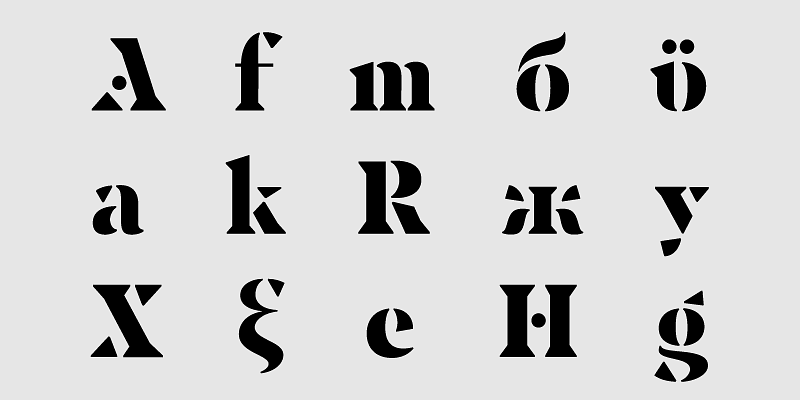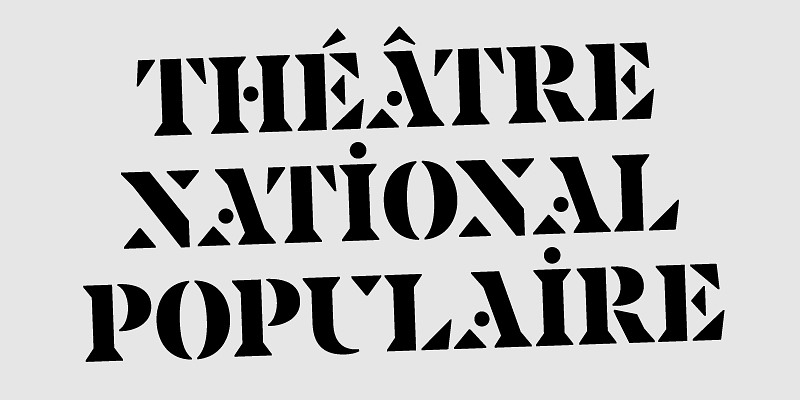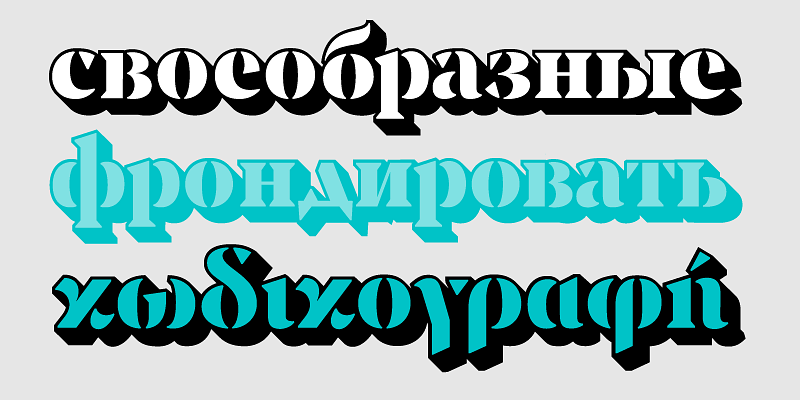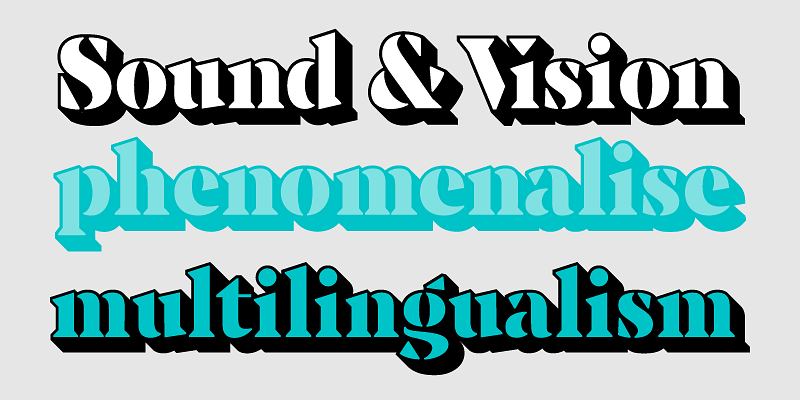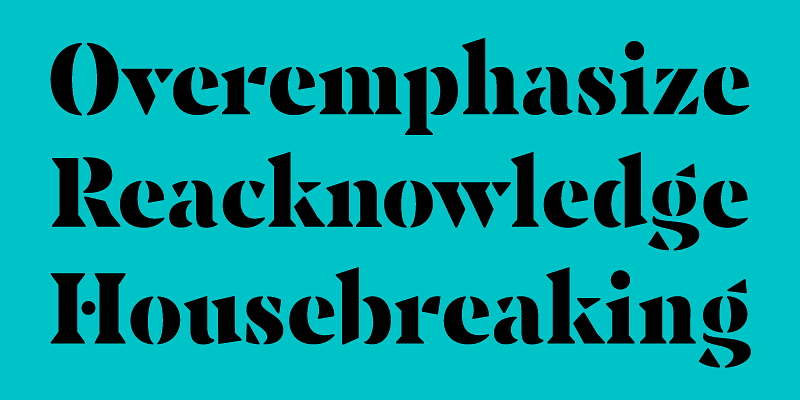
This sharp but approachable family takes its cues from the brutal simplicity of Josef Albers’ reductive lettering and the informal stencils made by graphic designer Jacno for the French Théâtre National Populaire in the 1950s.
The use of stencil technique predates movable type and goes back to the 17th century. It started picking up momentum in the 19th century and at the beginning of the 20th century it caught the attention of designers and architects such as Le Corbusier who adopted Didot-like stencils for labelling architectural drawings. It is used frequently for signage in industrial and urban environments but it has also become quite popular among graffiti artists.
Most stencil typefaces are adapted from existing non-stencil typefaces, but PF Spine is rather distinct in its construction as it was developed using for its skeleton a minimalistic range of triangular shapes, curves and lines with drastic stroke omissions, carefully designed to provide a harmonious balance and visual uniformity in all supported languages.
This typeface comes in 4 styles including two versions for making 3D layered stencils with different shades of grey or colour for each layer. The 3D layers have been reworked to ensure sequential letters without breaks, by eliminating the inter-character white space that usually builds up inside the shadow, making room for an even flow which is determined by the upper and lower part of the letterforms.
Furthermore, PF Spine provides advanced typographic features including alternate glyphs for initial, medial and final glyphs. It supports Latin, Greek and Cyrillic.